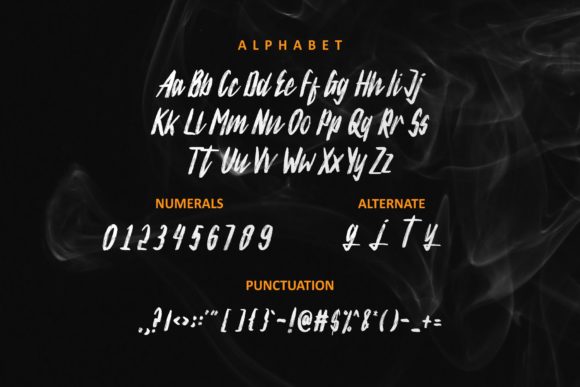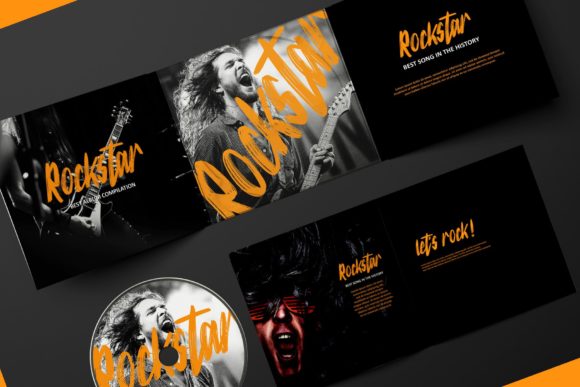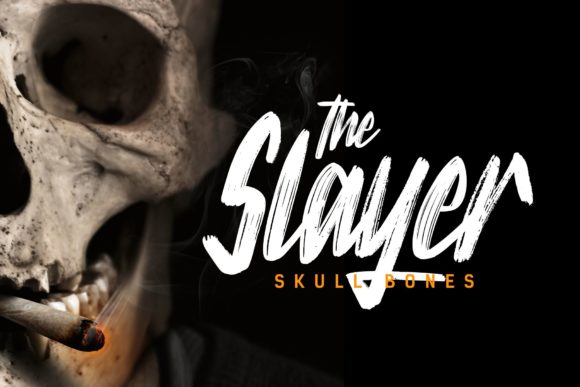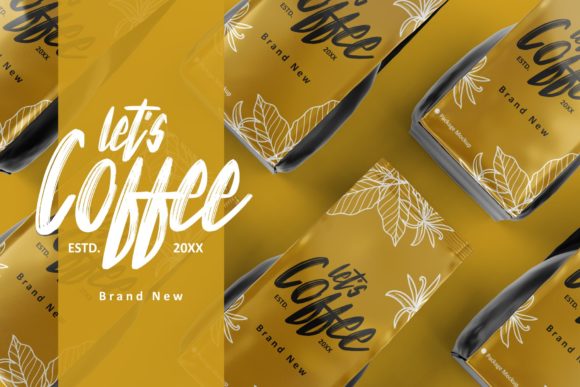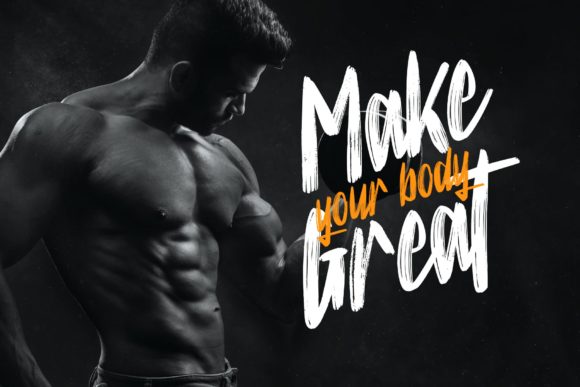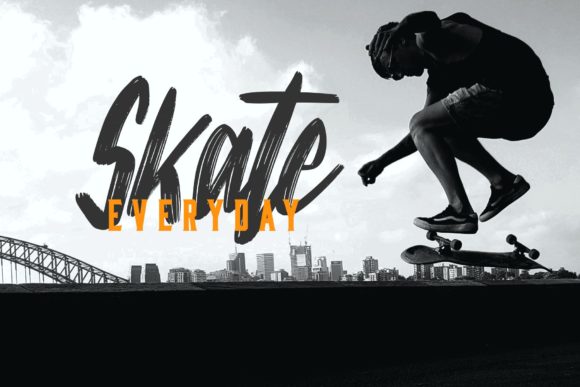
Introduction to Silver Rayleigh Font
Silver Rayleigh is a truly bold and powerful handwritten font that effortlessly combines legibility and charm.
Silver Rayleigh is a truly bold and powerful handwritten font that effortlessly combines legibility and charm!